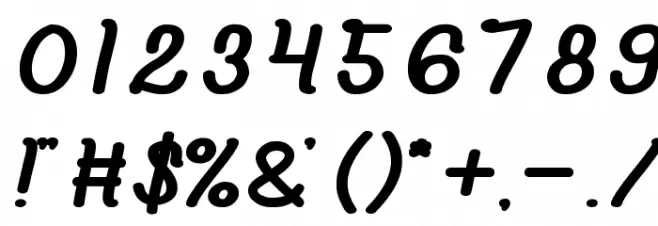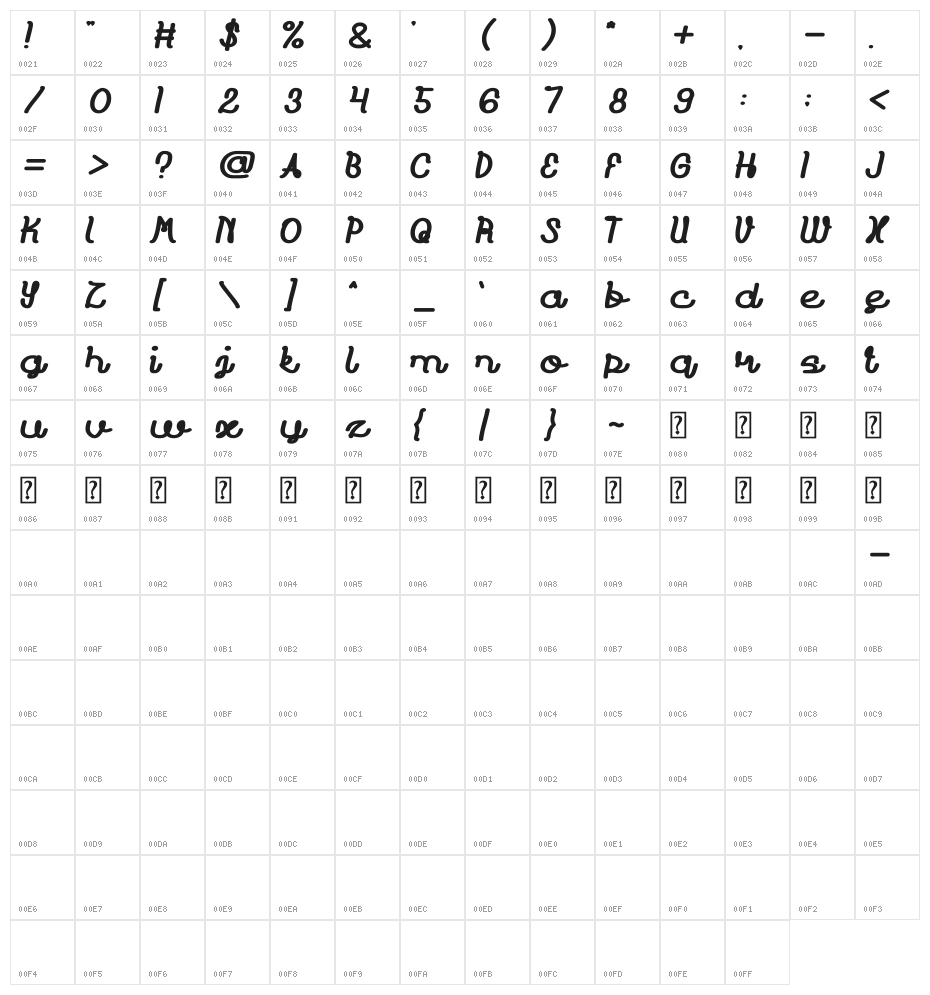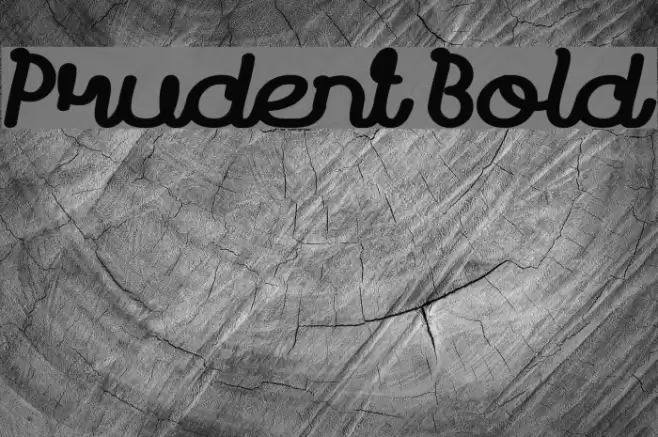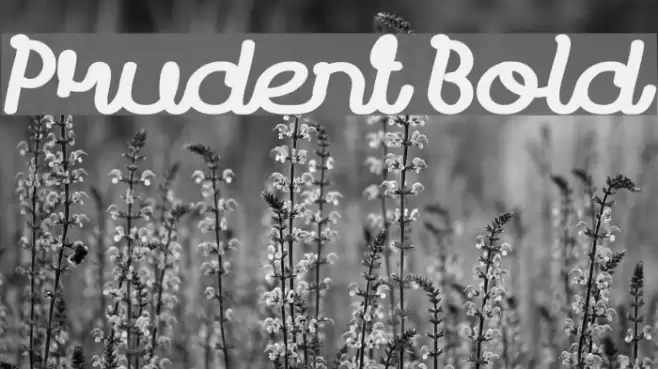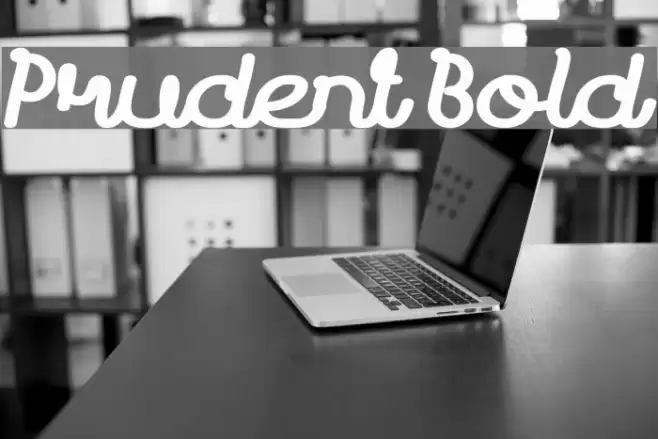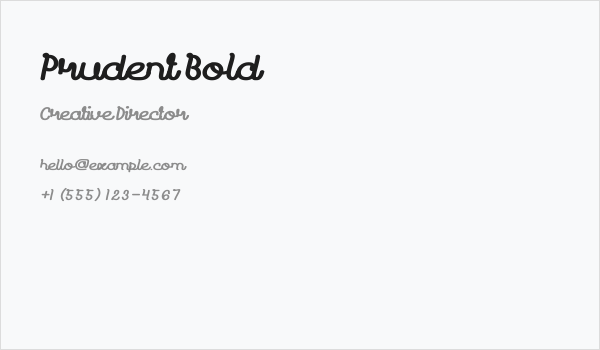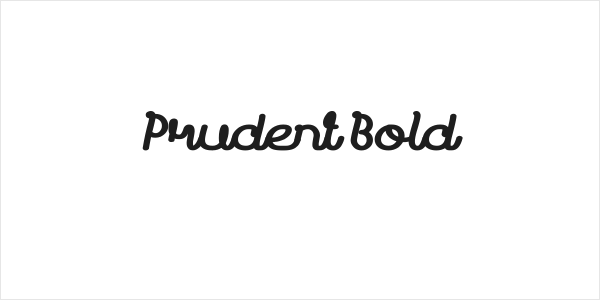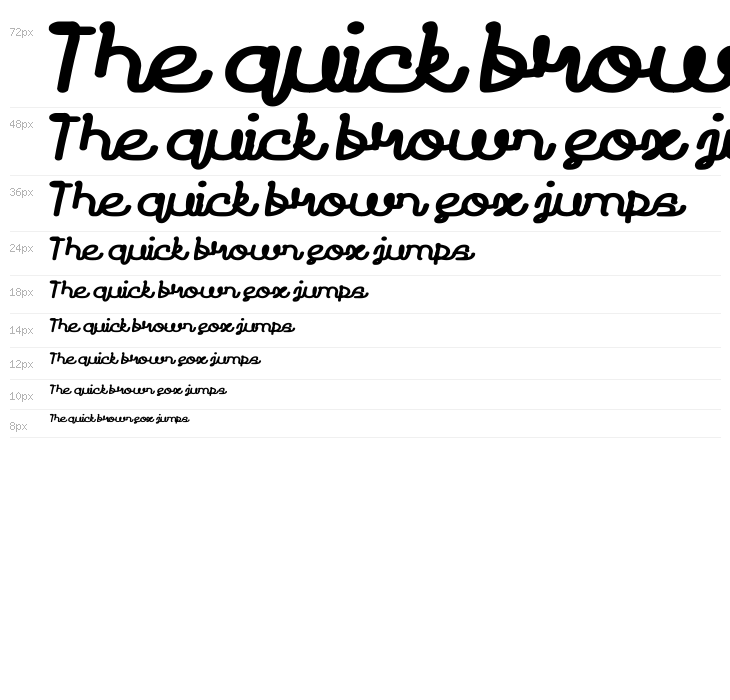
Prudent Bold Font
Prudent Bold Description
This font features a bold, cursive style with a playful and energetic appearance. The letters are interconnected, giving it a flowing, handwritten feel. The strokes are thick and consistent, providing a strong presence on the page. The uppercase letters maintain a uniform height, while the lowercase letters have a slight slant, enhancing the script-like quality. Numbers and special characters are designed to match the overall aesthetic, ensuring a cohesive look across all text elements. The font's boldness makes it suitable for attention-grabbing headlines or creative projects.